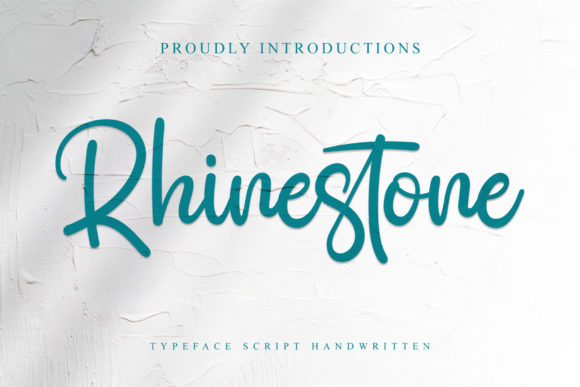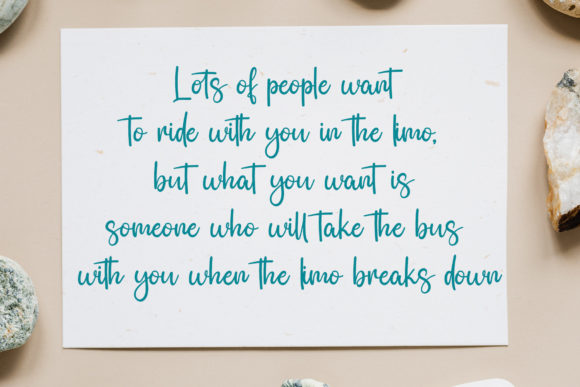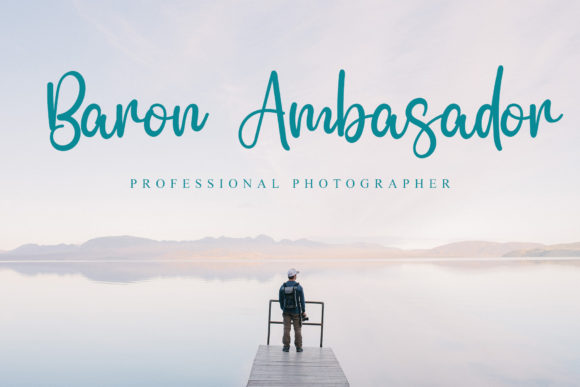
About Rhinestone Font
Rhinestone is a lovely and delicate script font that exudes elegance and class. This font was particularly crafted for those who need a beautiful and refreshing look to their designs.